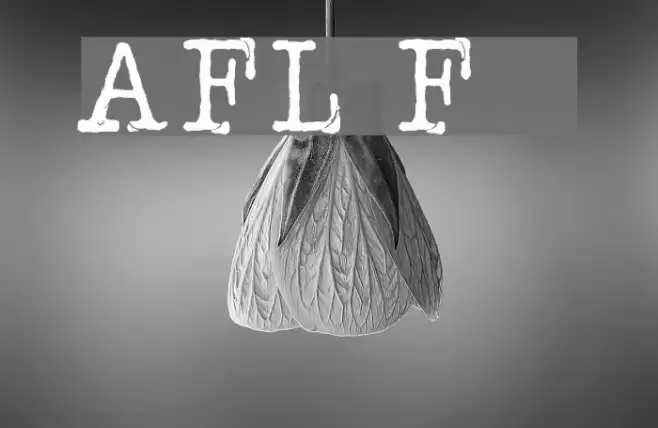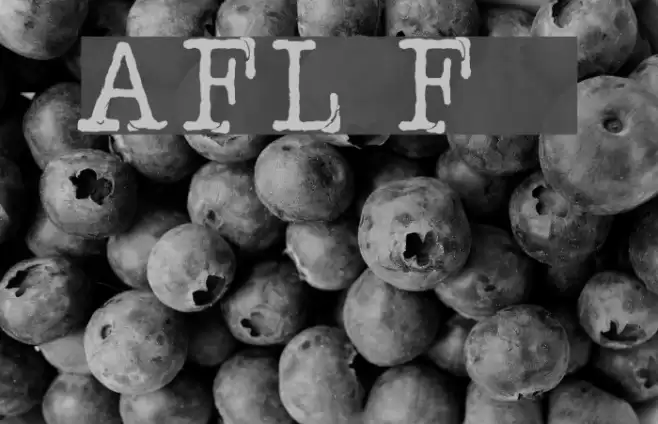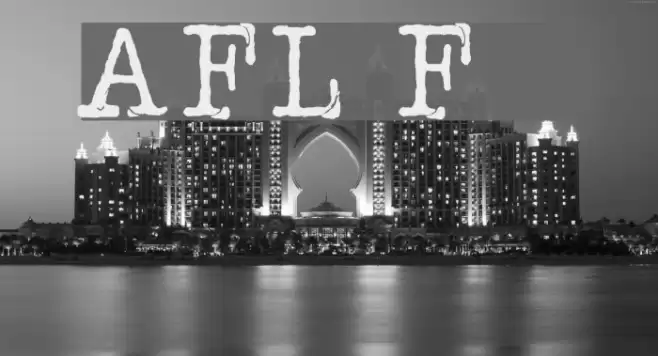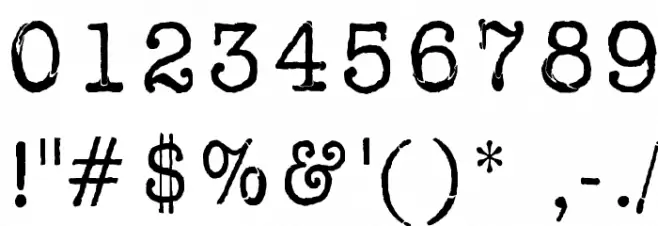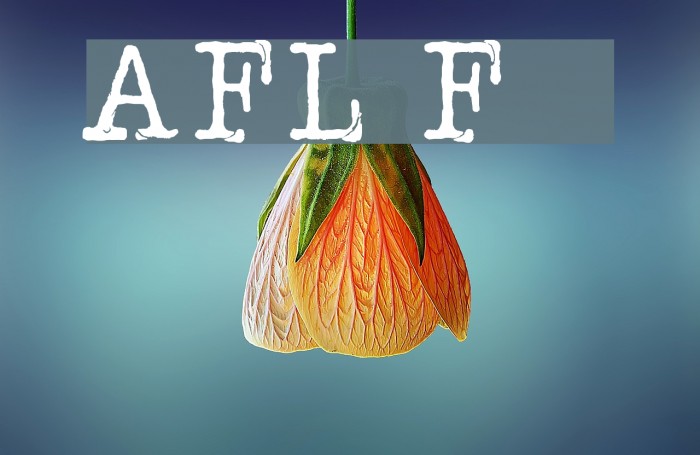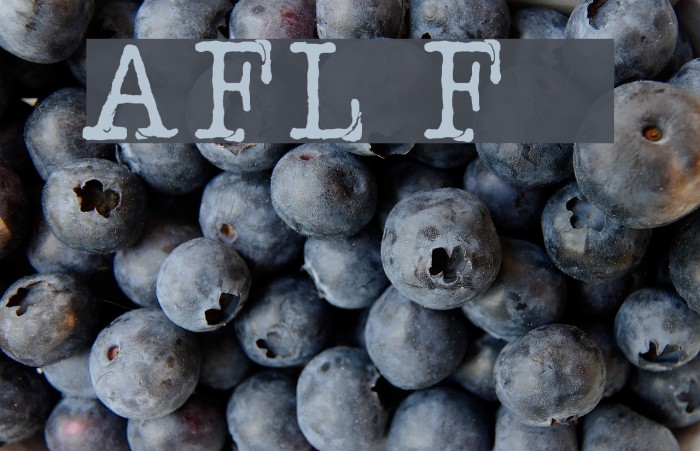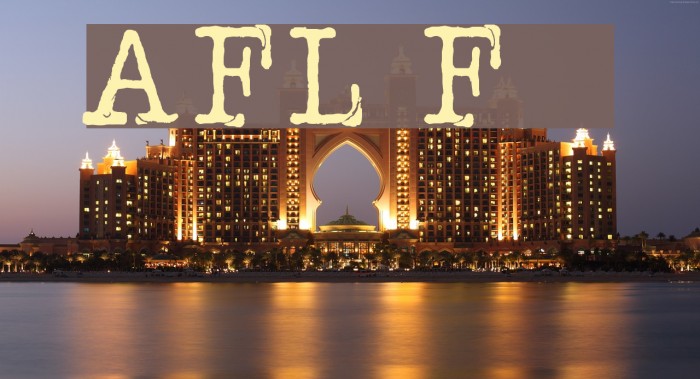
AFL Font pespaye nonmetric
This font features a distinctive, vintage typewriter style with a textured, slightly distressed appearance. The characters are monospaced, giving it a mechanical and uniform look. Each letter has a unique, worn texture that adds character and depth, reminiscent of old typewriter keys striking paper. The uppercase letters are bold and prominent, while the lowercase letters maintain a consistent style with slightly rounded edges. Numbers and special characters follow the same aesthetic, ensuring a cohesive look throughout. This font is perfect for projects that aim to evoke a sense of nostalgia or a retro vibe.
A vintage, typewriter-style font with a textured, distressed look.
- Proposed Projects: Ideal for retro-themed designs, typewriter art, vintage posters, and creative writing projects.
- Category: Monospaced
- Overall Style: Vintage
- Use Case: Headlines, Logos, Decorative text